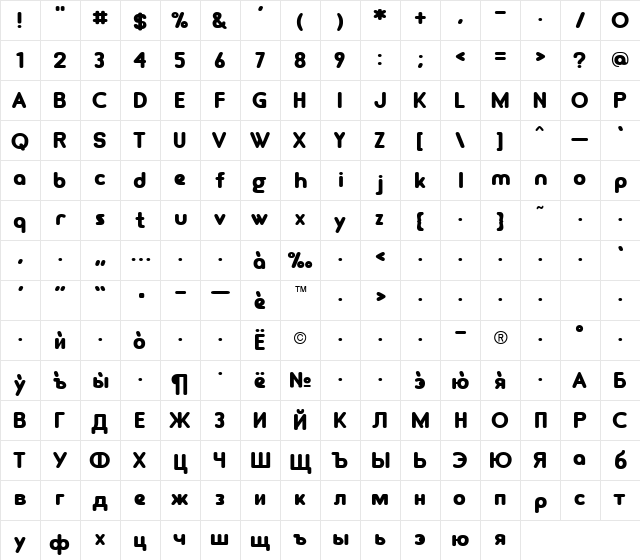
OvalCyr Regular Font Preview
OvalCyr Regular
Design Context for OvalCyr Typeface
OvalCyr is a composed and adaptable typeface that performs quietly and consistently across a wide range of design contexts.
Pro Tip: Pair OvalCyr with a font of contrasting weight or personality to build a more expressive typographic hierarchy.